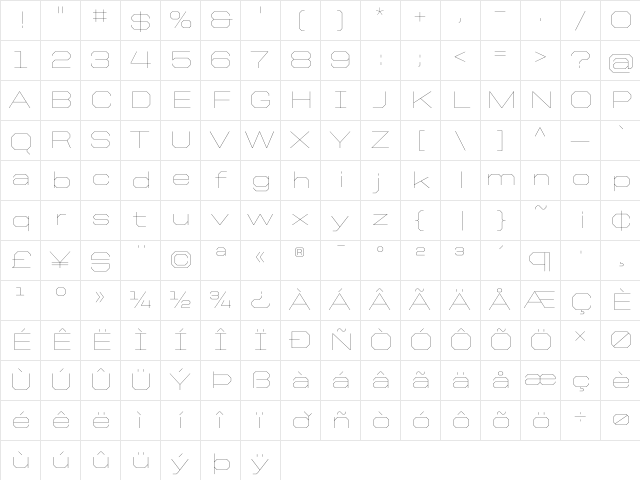
United Sans Ext Thin Free Font
United Sans Ext Thin
Foundry: House Industries
Designer: Tal Leming
Design Context for United Sans Ext
United Sans Ext is a composed and adaptable typeface that performs quietly and consistently across a wide range of design contexts. Its slender proportions lend an understated elegance to any composition.